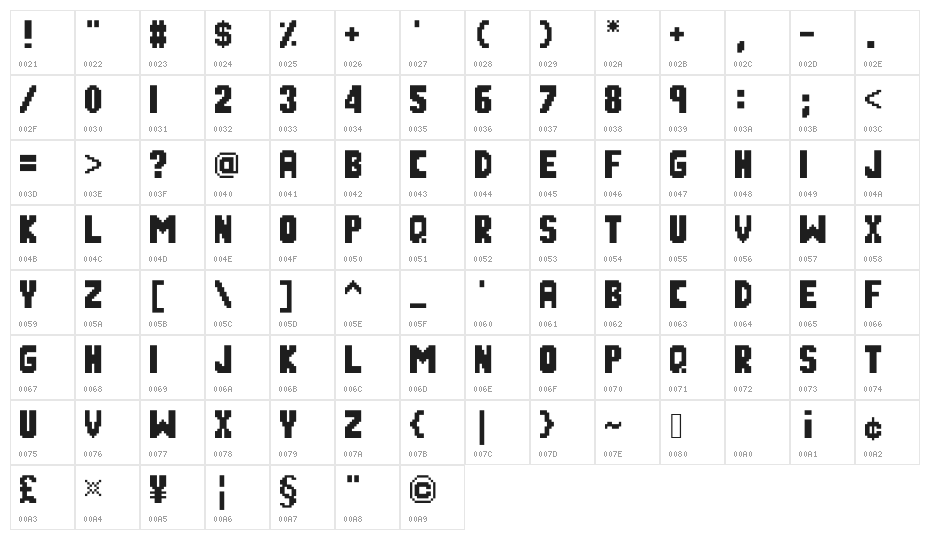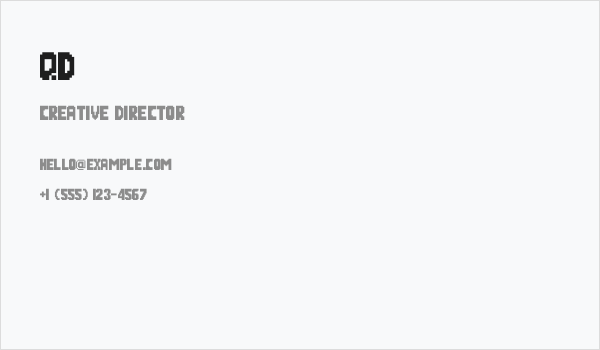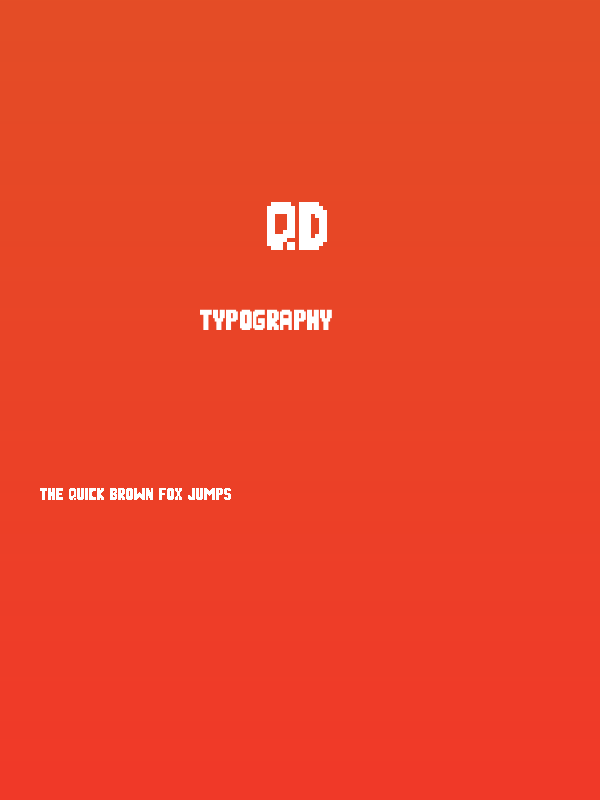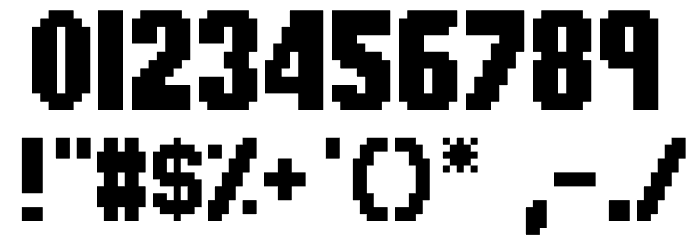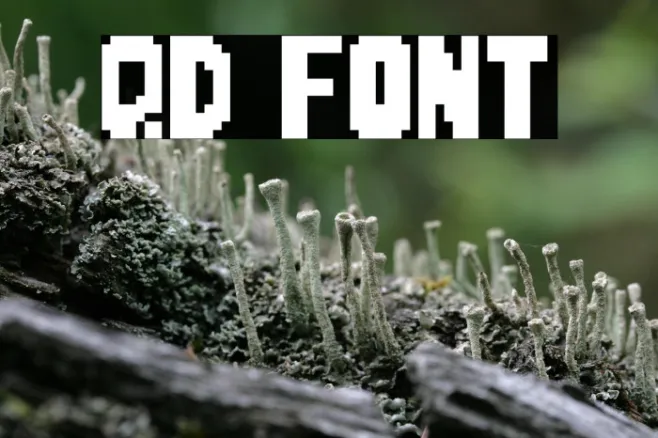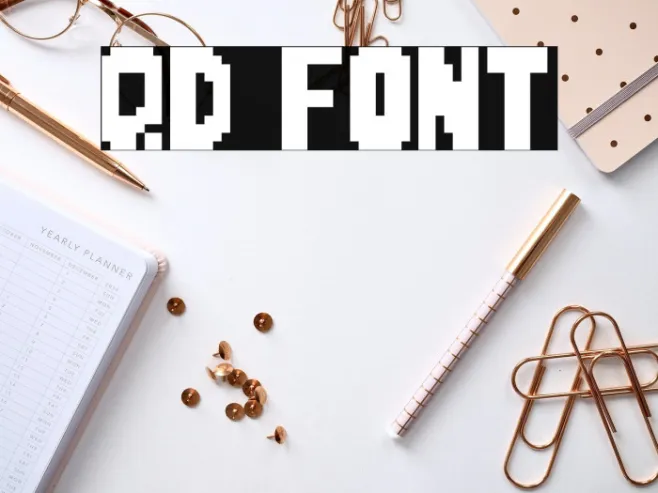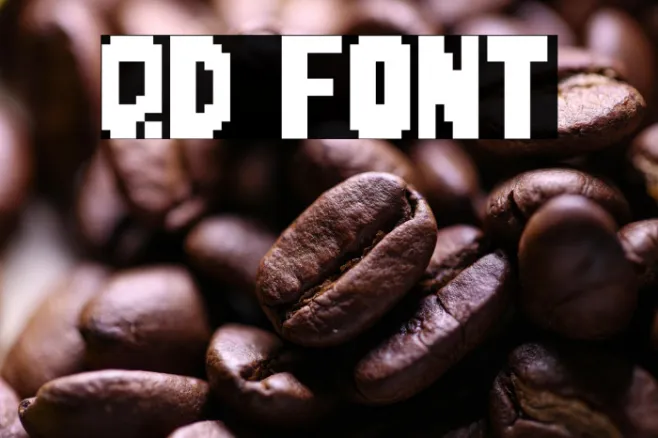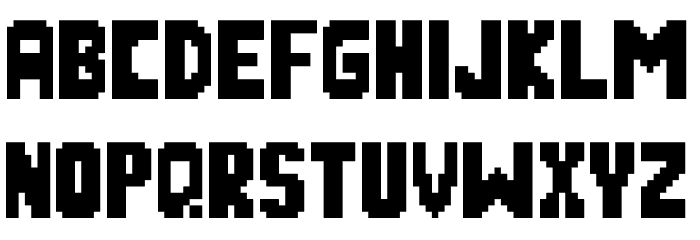
QD Font
QD Description
This font features a bold, blocky design with a pixelated aesthetic reminiscent of early digital displays and retro video games. The characters are uniformly wide, with each letter and number maintaining a consistent height and width, creating a monospaced appearance. The edges are sharp and angular, contributing to its geometric style. The font's simplicity and lack of curves give it a distinctly modern and digital feel, making it ideal for projects that require a tech-inspired or nostalgic look. The special characters are designed with the same pixelated style, ensuring uniformity across all glyphs.
| Use Case | Headlines, Logos, Digital displays |
| Proposed Projects | Ideal for retro video games, tech-themed designs, digital art, and any project seeking a nostalgic or digital look. |